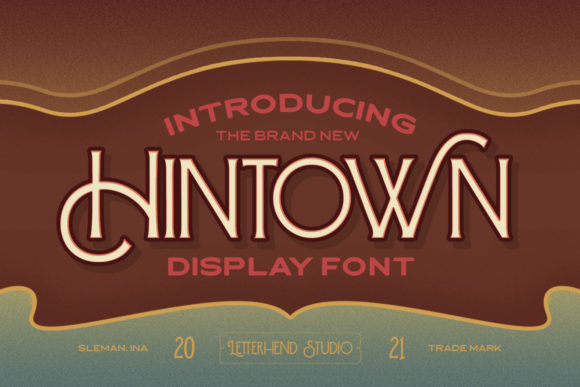
Feast your eyes on Hintown, a majestic creation from letterhend that exudes elegance, whimsy, and beauty. This display font is not just another addition to your font library; it's an investment in design excellence. With its inherent power to transform any creation, Hintown is your ultimate weapon in the pursuit of visual splendor.
Step into a world of luxury and sophistication, where every letter dances with grace and commands attention. Hintown's intricate details and flowing curves evoke a sense of timeless elegance, making it the perfect choice for branding, logos, invitations, and any project that demands a touch of grandeur.
Craft headlines that exude authority and sophistication, headlines that demand attention and leave a lasting impression. Design logos that speak volumes about your brand, conveying luxury and exclusivity in every pixel. Create invitations that transport your guests to a world of enchantment, setting the stage for an unforgettable occasion.
But Hintown's allure extends far beyond these traditional realms. Unleash your creativity and explore its versatility in social media posts, website designs, and even fashion apparel. With Hintown, your designs will radiate opulence and leave your audience spellbound.